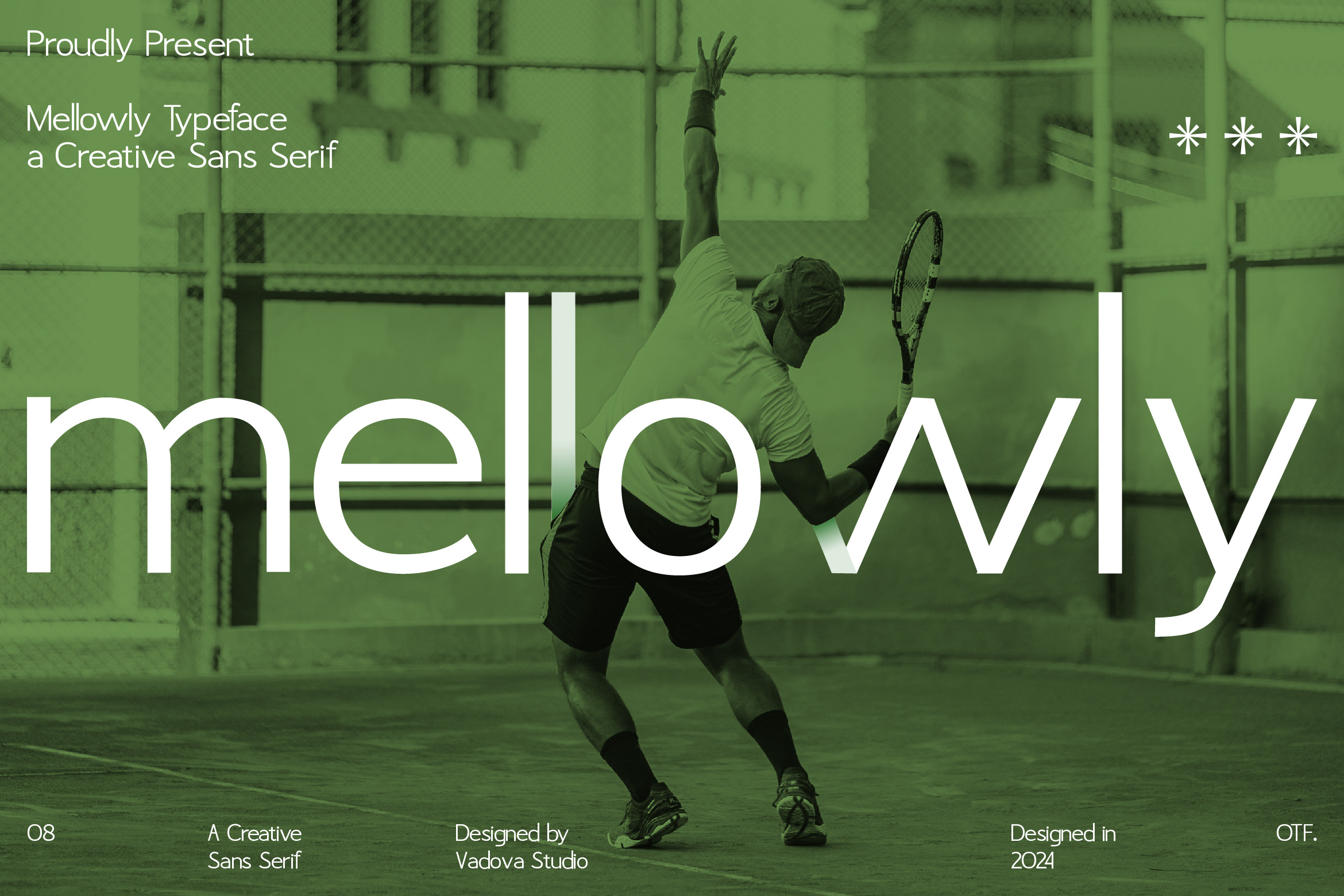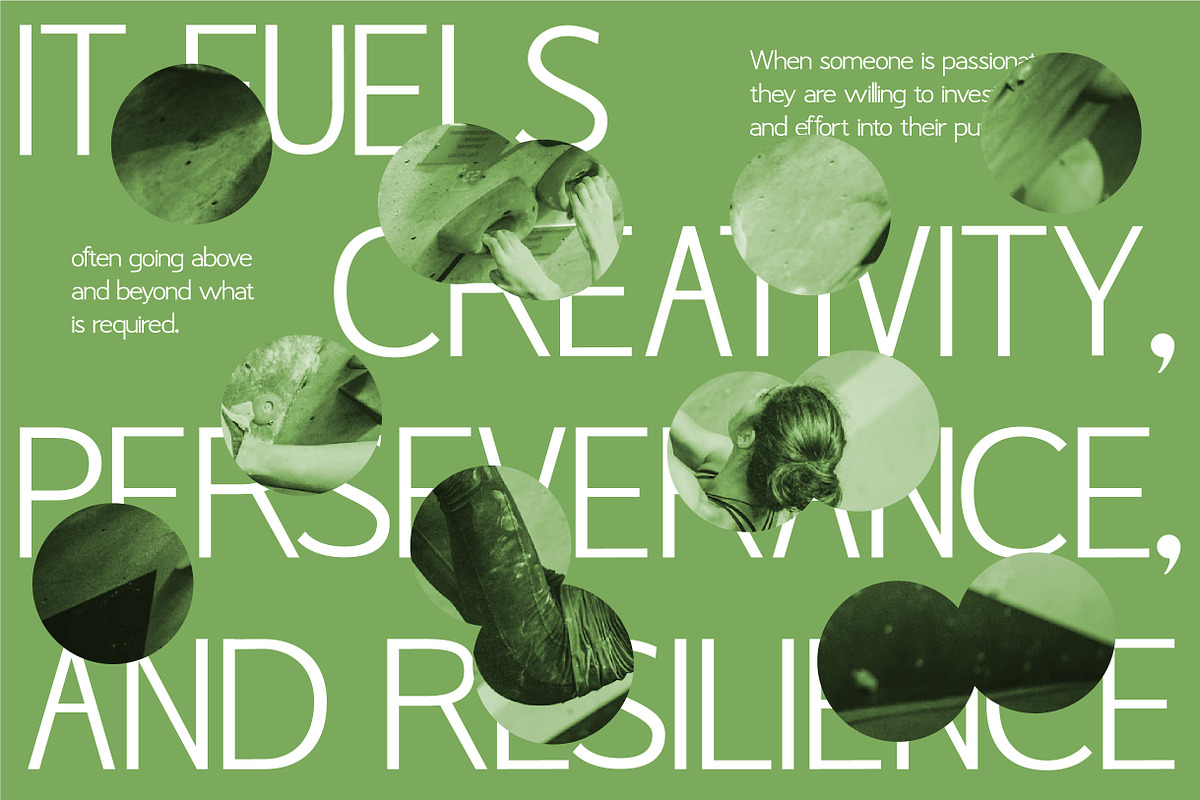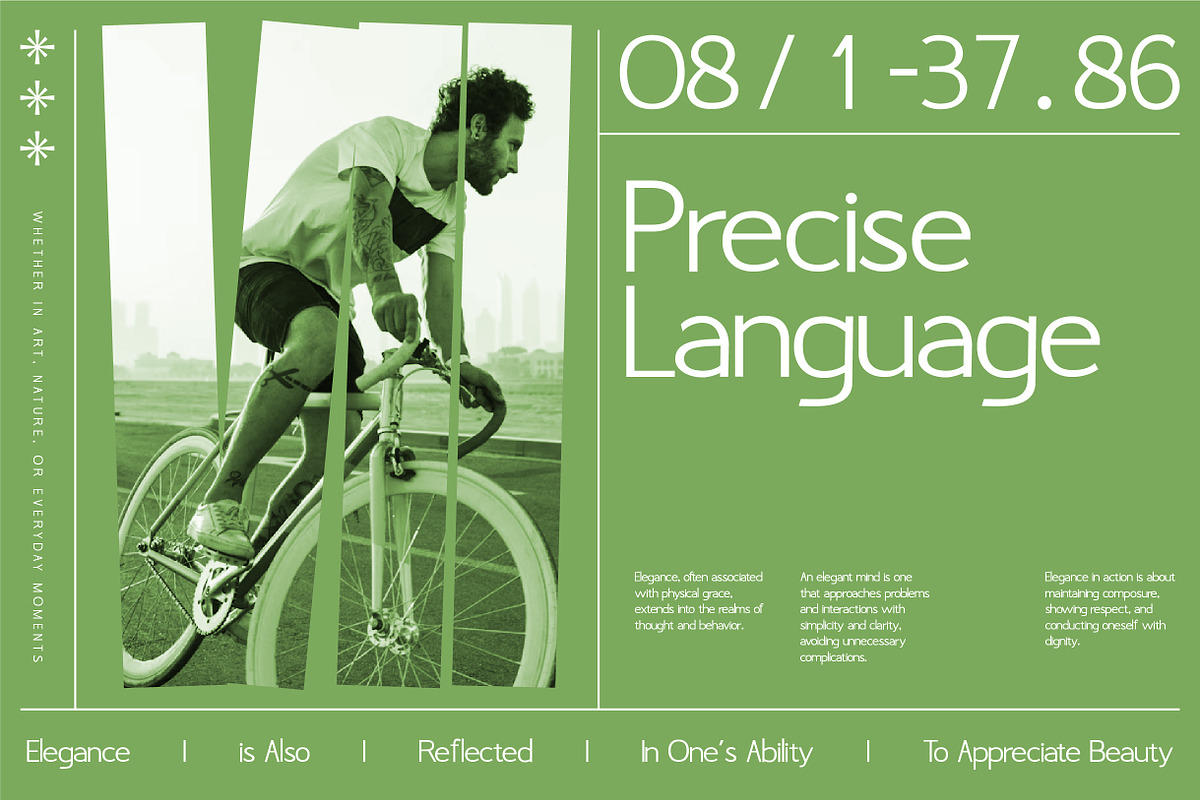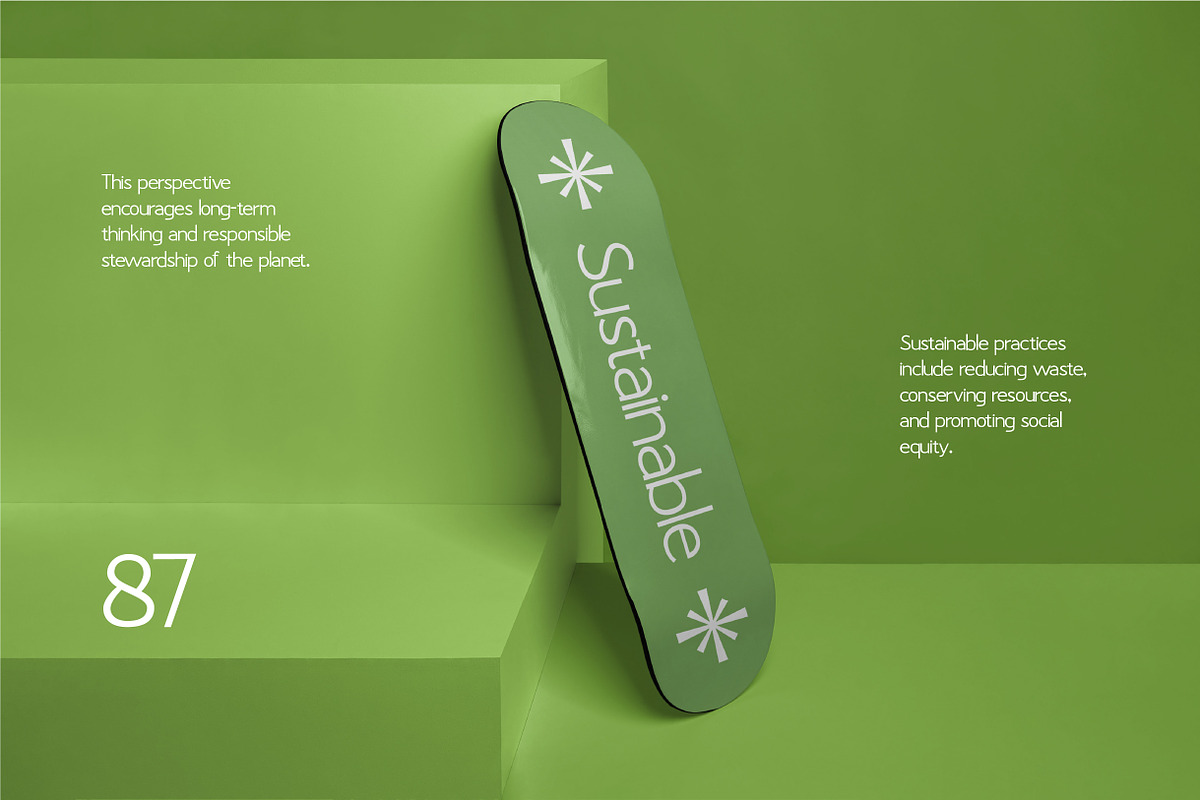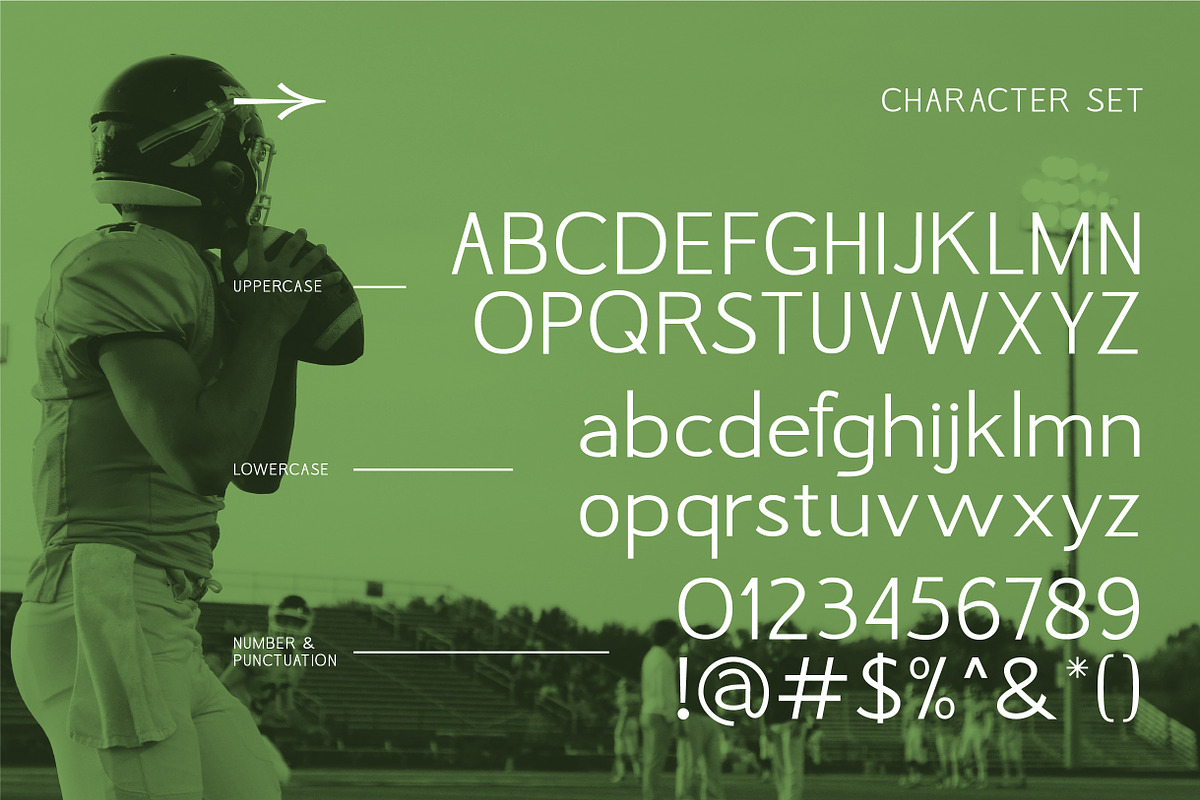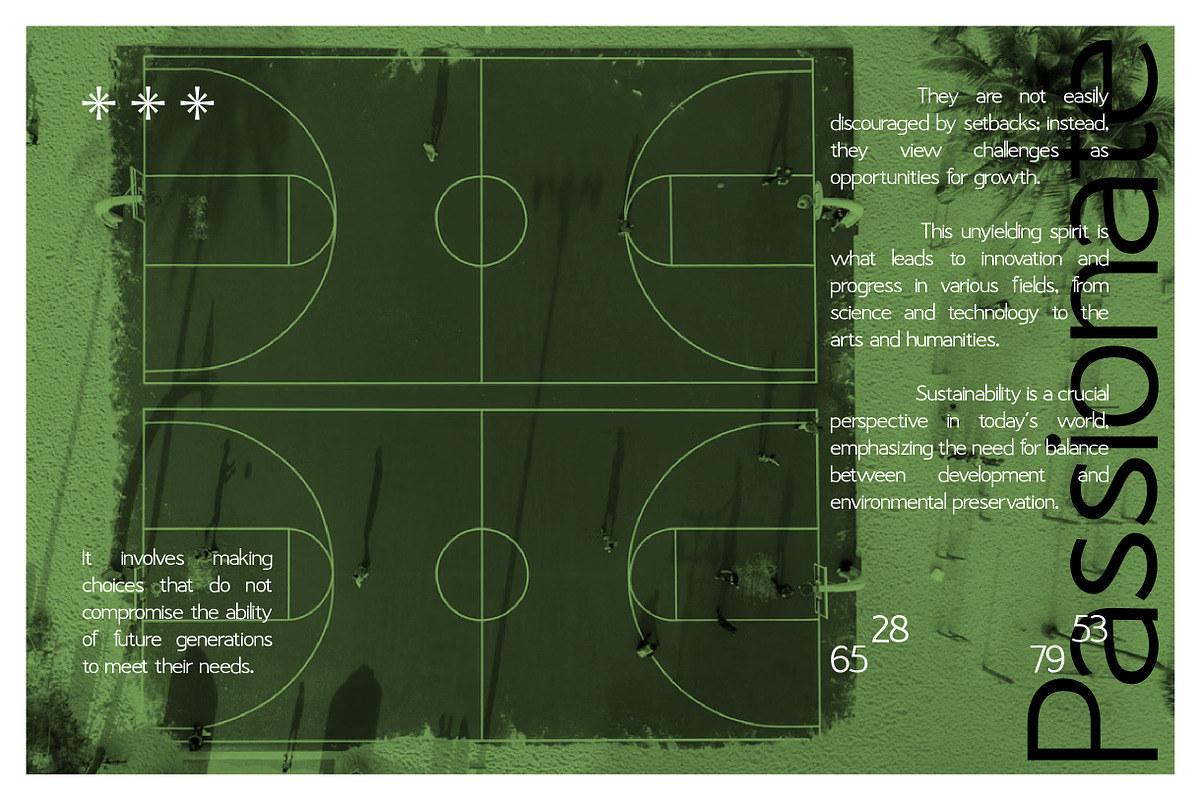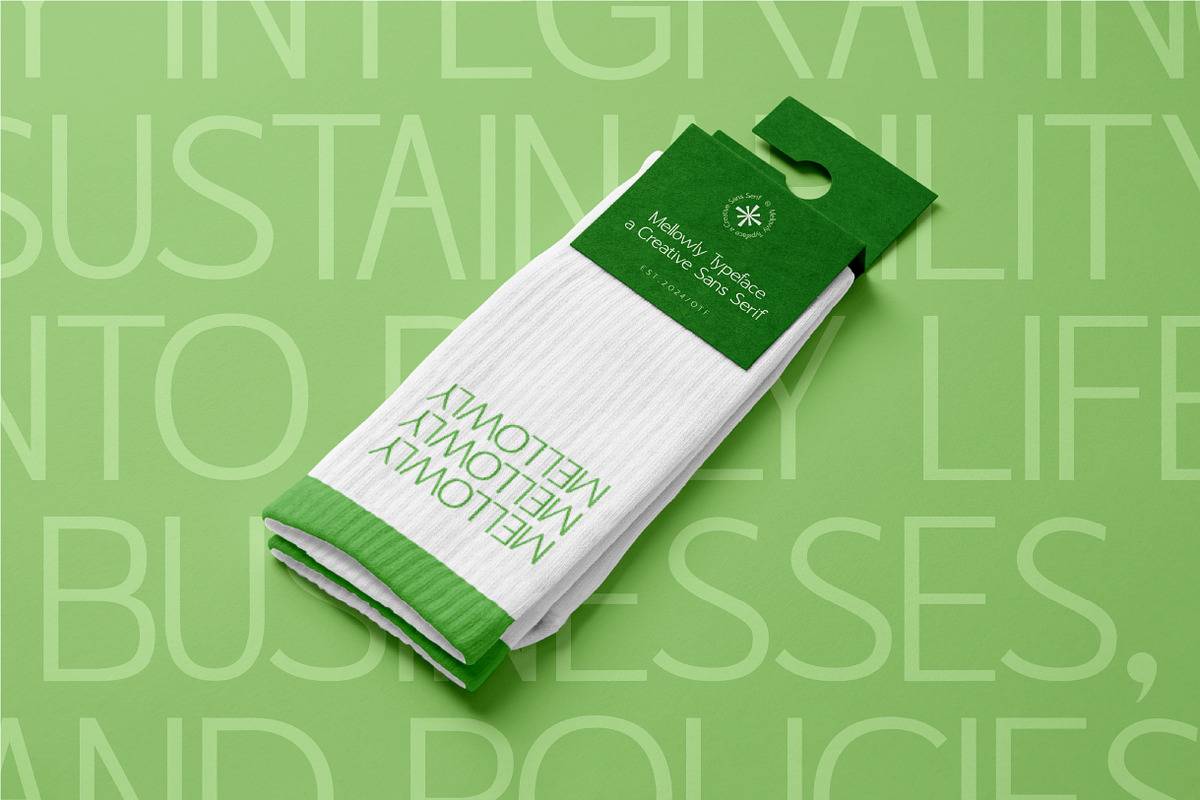
Mellowly Sans Serif Font
Mellowly is a clean, modern sans serif typeface designed for clarity, flexibility, and creative expression. With its geometric construction and soft minimalist aesthetic, Mellowly finds balance between functionality and visual sophistication. The font includes uppercase and lowercase letters, numbers, punctuation, and multilingual characters making it perfectly suited for digital platforms, print design, and branding.
Whether you’re designing a sports campaign, tech product, lifestyle magazine, or minimalist UI interface, Mellowly smooth rhythm and legible forms adapt effortlessly. It brings a quiet confidence to everything from logo design to editorial layouts and is optimized for both screen and print clarity. Mellowly is the ideal font for designers seeking smart simplicity and creative impact.
- Contemporary sans serif built on a geometric grotesk foundation
- Soft curves and rounded terminals for a clean, modern look
- Subtle humanist touches add approachability and warmth
- Balanced proportions and open counters improve screen readability
- Optimized spacing for seamless use in headlines, UI, and long-form text
- Brand identity systems that prioritize clarity, balance, and modern appeal
- UI/UX design for mobile apps, dashboards, and clean digital interfaces
- Editorial spreads and minimalist book layouts requiring legible typography
- Product packaging and labeling with sleek, contemporary aesthetics
- Social media templates and digital kits designed for calm, professional tone
- Full Cyrillic and Latin multilingual support
Clean, calm, and confidently modern Mellowly brings refined energy to every design